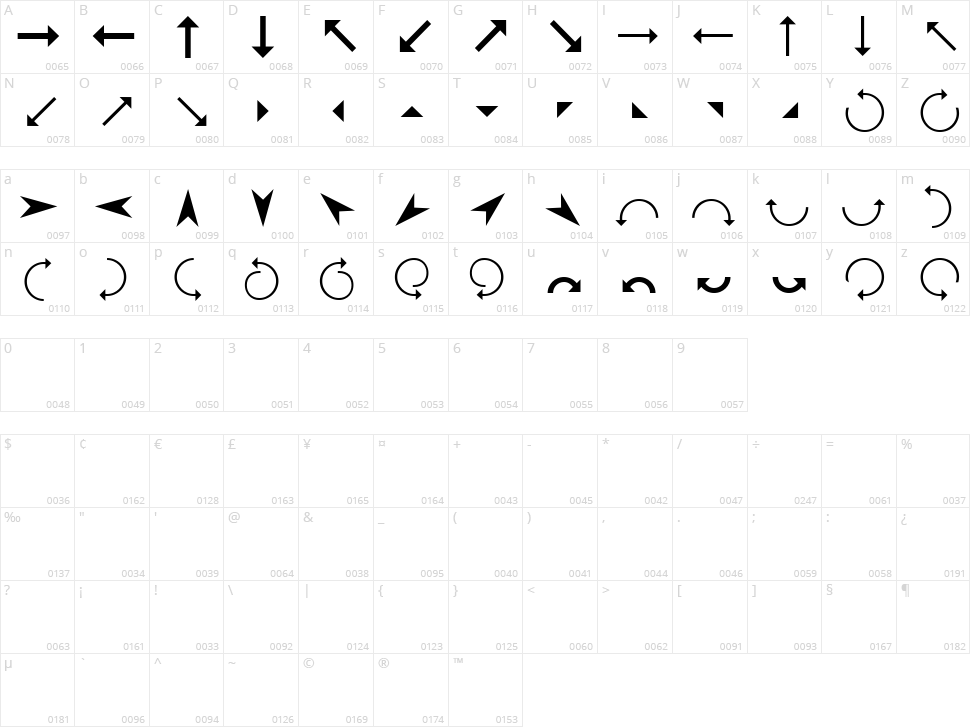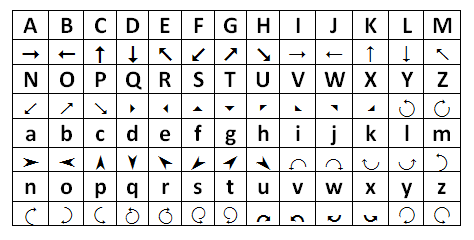
Arrows
Arrows Font
Arrows is a font that has several types of arrows. I created this font using FontLab Studio 5 only. Like all other JLH Fonts, this font is in the public domain; however, it is a symbol font, so it does not come with the Euro sign.